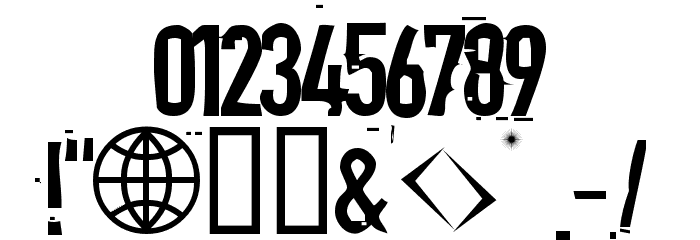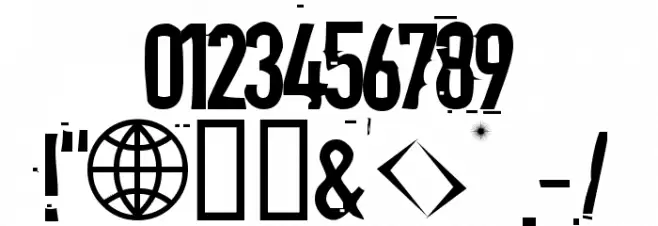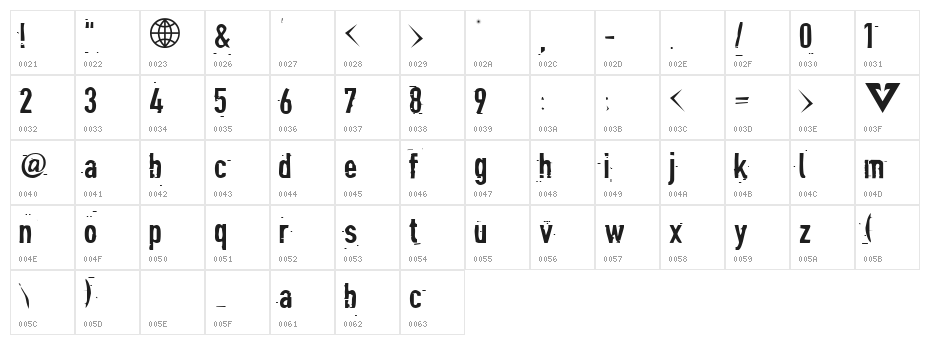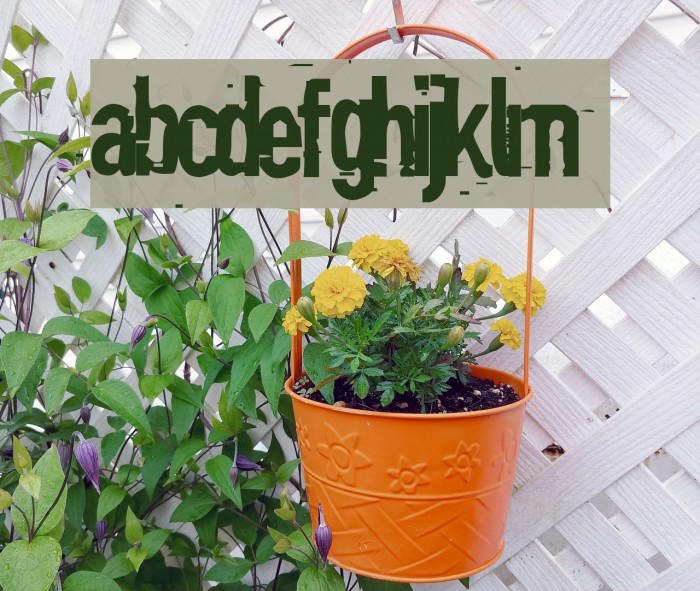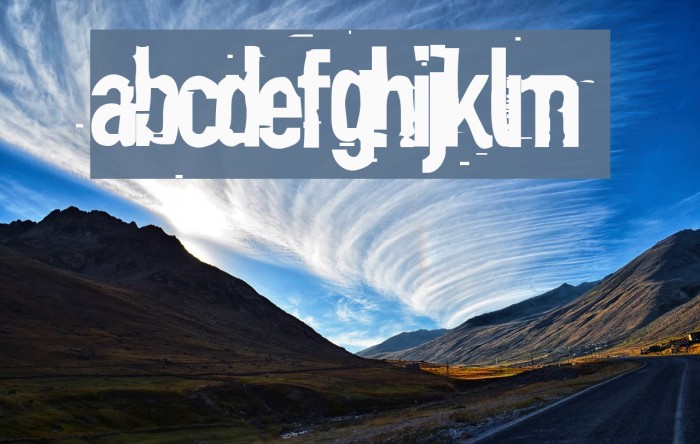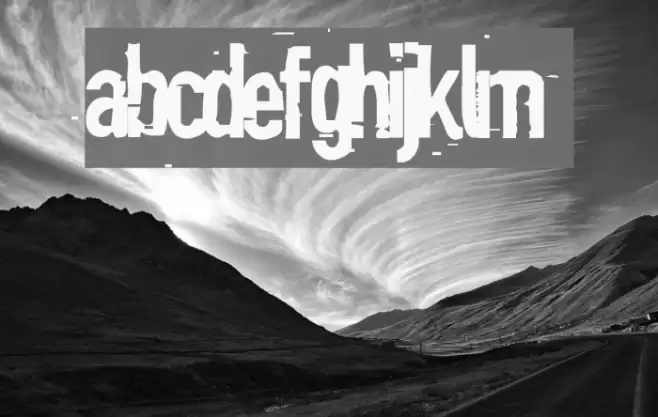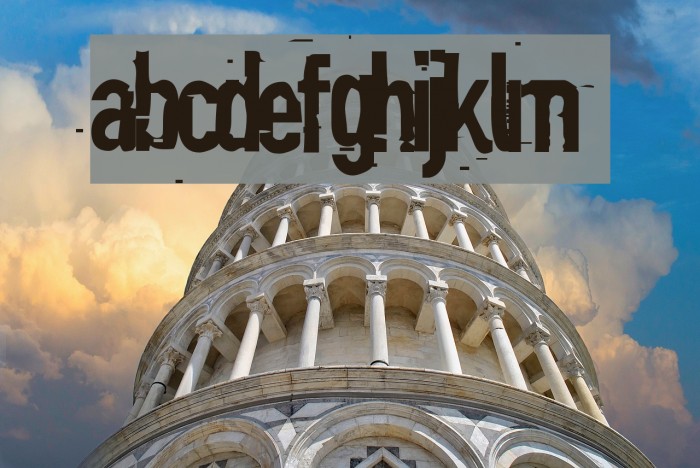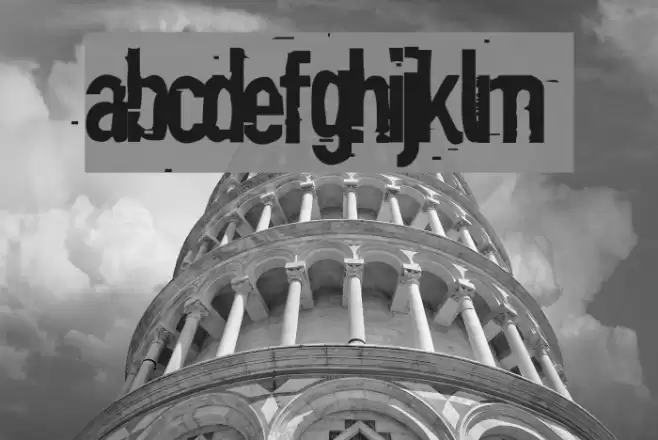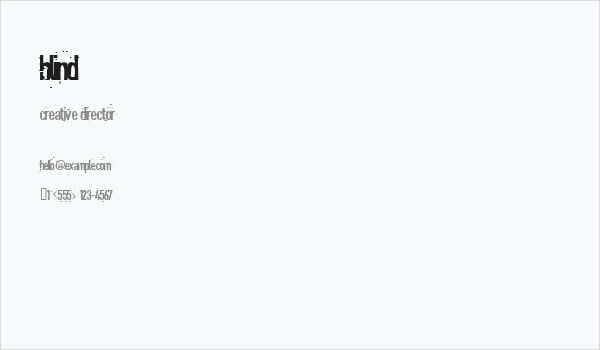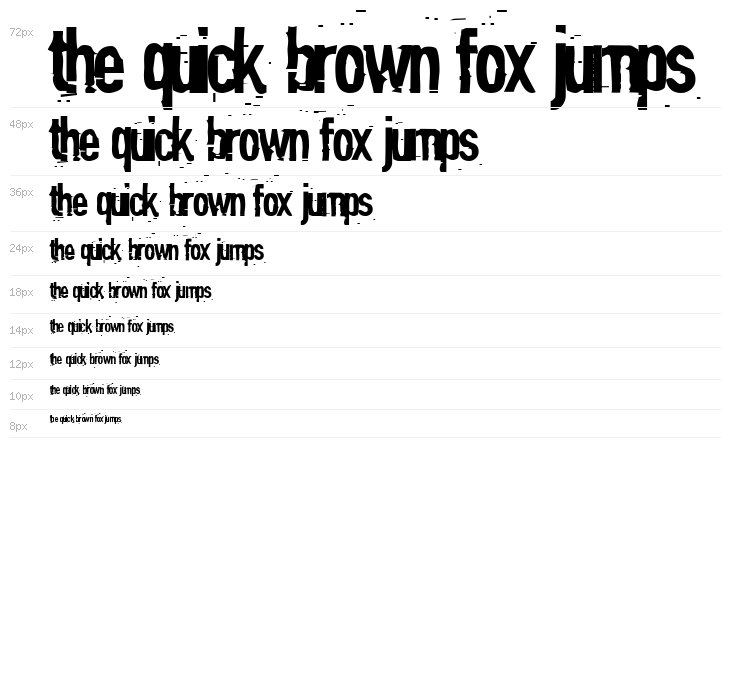
Blind Font
Blind Description
This font exhibits a bold and modern aesthetic with a strong presence. The characters are uniformly thick, providing a consistent and impactful look. The uppercase and lowercase letters maintain a cohesive style, with rounded edges that soften the overall appearance. Numbers are clear and legible, matching the boldness of the alphabetic characters. The special characters are distinct and easily recognizable, adding versatility to the font. This typeface is designed to stand out, making it suitable for attention-grabbing headlines or branding materials.
BLIND UPPERCASE
BLIND LOWERCASE
BLIND OTHER CHARS